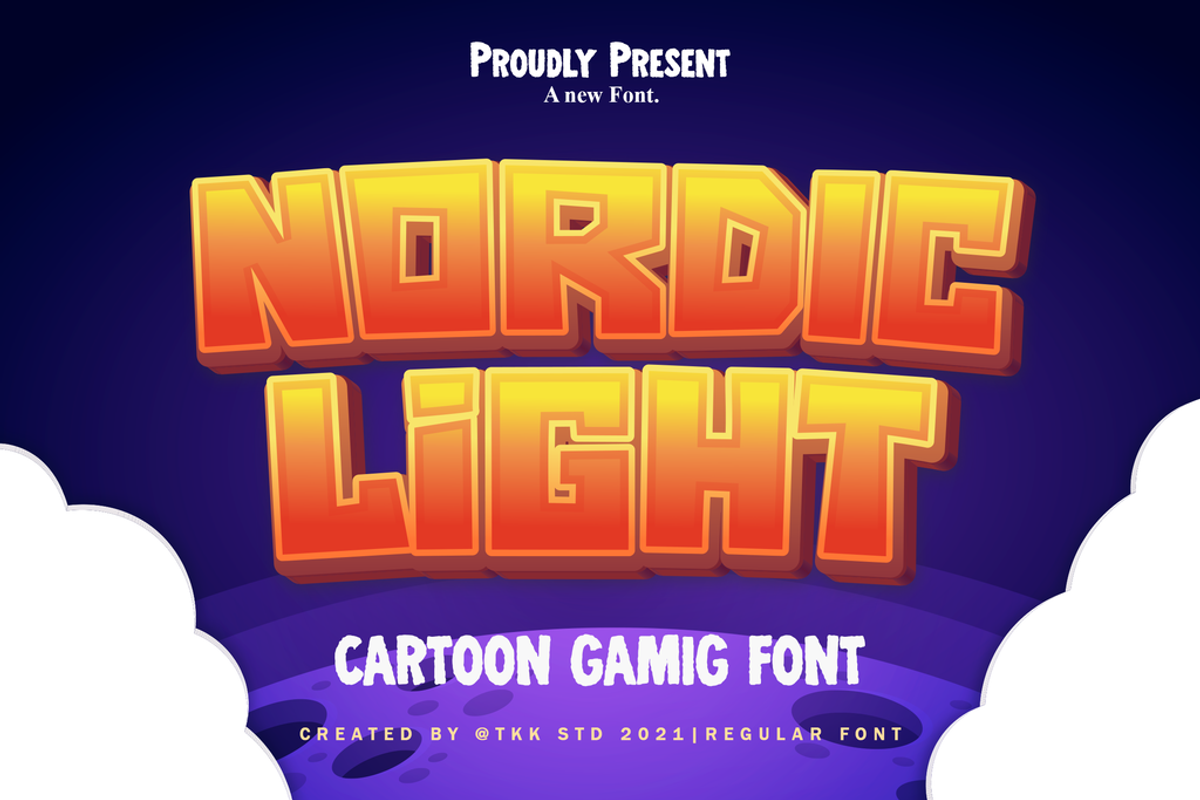
Nordic Light - Gaming Font Free Download is a bold and dynamic typeface designed to bring energy and excitement to your gaming projects. With its sharp, futuristic edges and clean lines, this font is perfect for video game logos, streaming channels, gaming merchandise, and esports branding. Its unique design captures the essence of modern gaming culture while maintaining legibility and style. Whether you’re creating a game title, promotional content, or in-game text, Nordic Light - Gaming Font Free Download lets you test its striking style in personal or concept projects before purchasing a commercial license. Take your gaming designs to the next level with a font that radiates power, excitement, and innovation.